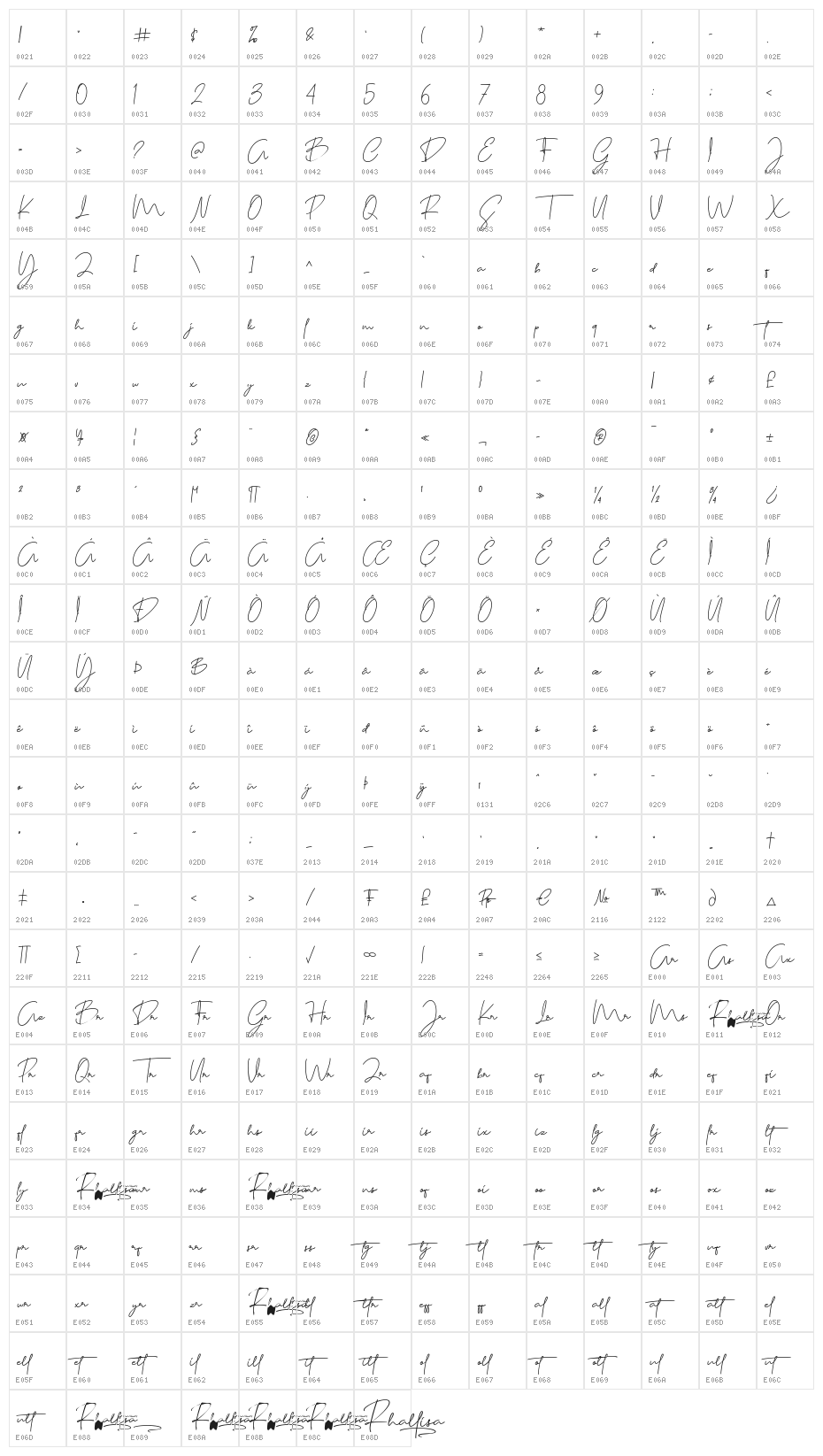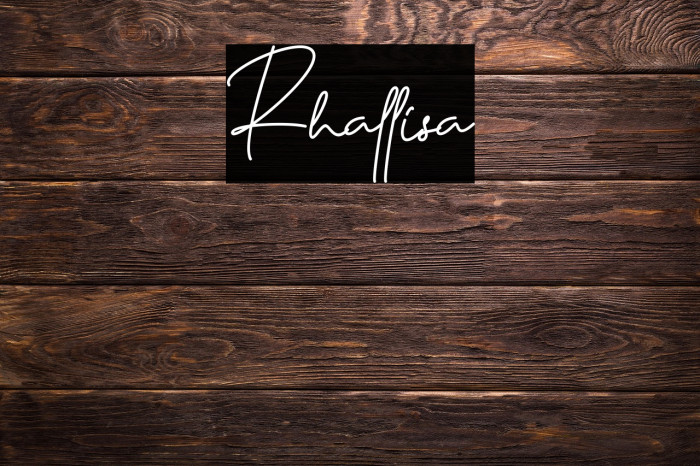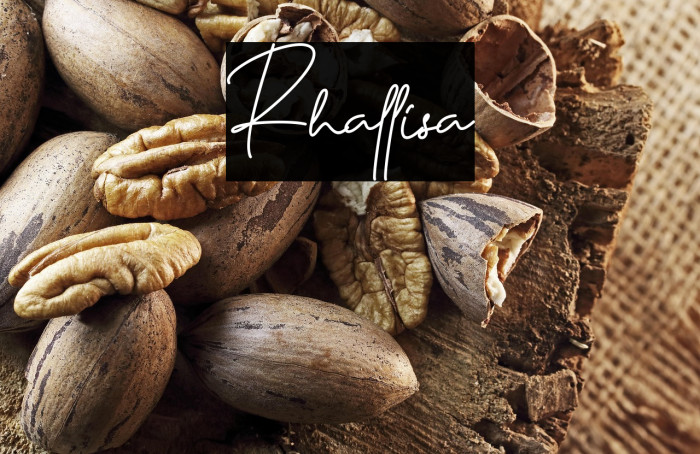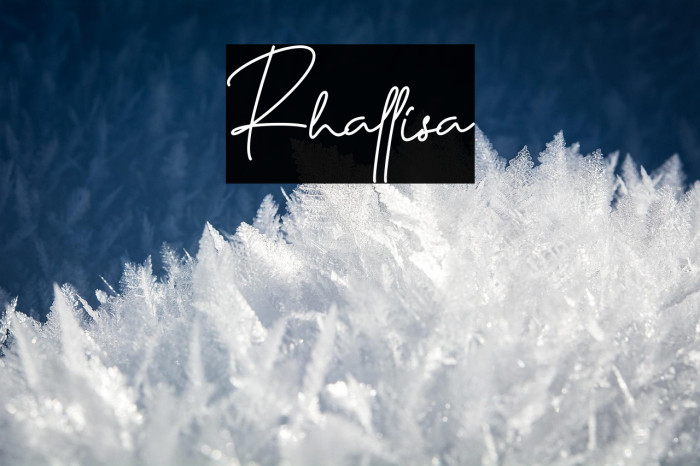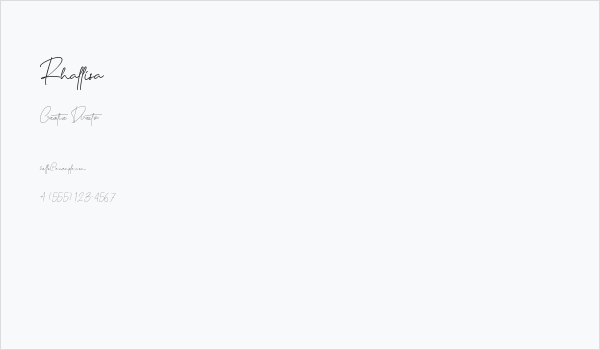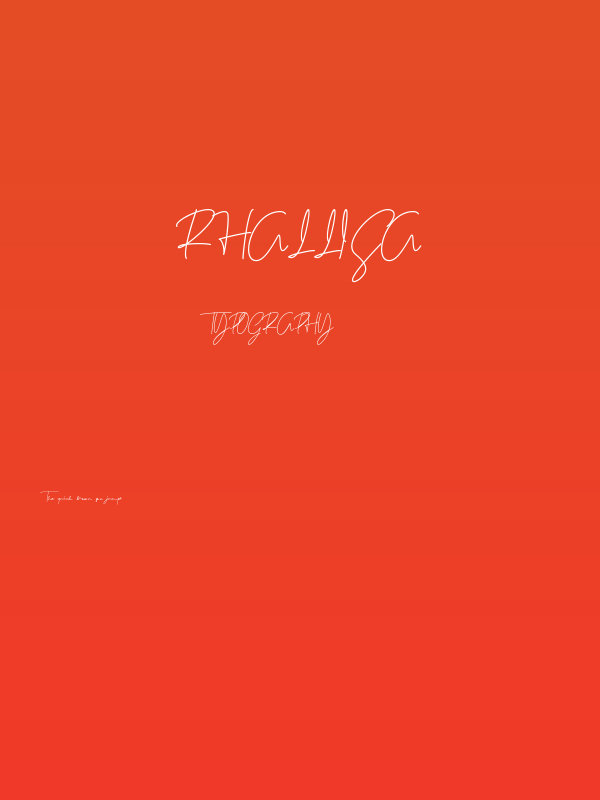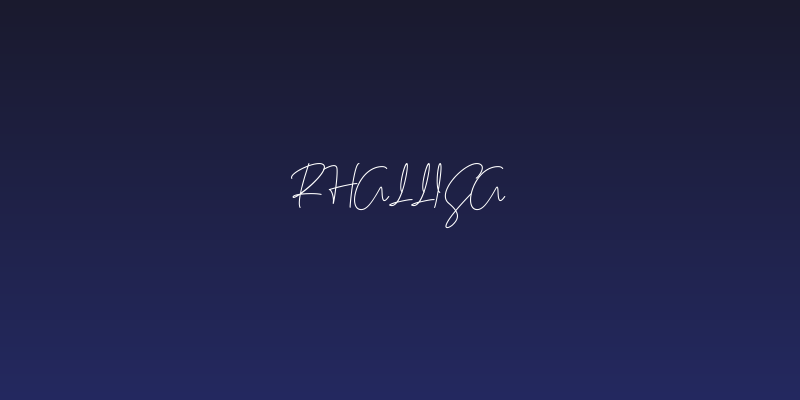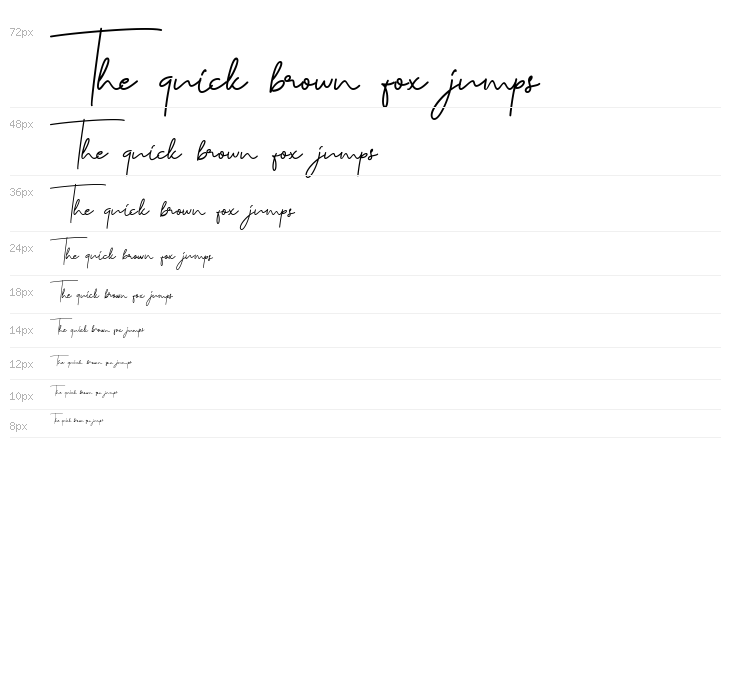
Rhallisa Font
Rhallisa Description
This font features a lively and expressive handwritten style, characterized by its fluid and dynamic strokes. The uppercase letters are tall and slightly slanted, giving a sense of movement and spontaneity. The lowercase letters maintain a consistent flow, with some characters extending below the baseline, adding to the casual and informal appearance. The numerals are well-integrated with the overall style, maintaining the same playful and free-spirited aesthetic. Special characters are crafted with the same attention to detail, ensuring they complement the rest of the font. This font's unique charm lies in its ability to convey a personal touch, making it ideal for projects that require a human and approachable feel.
| Overall Style | Casual and informal |
| Use Case | Logos, Invitations, Social media graphics |
| Proposed Projects | Ideal for personal branding, greeting cards, invitations, and social media graphics. |